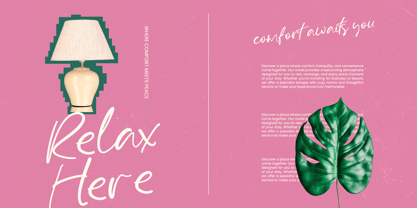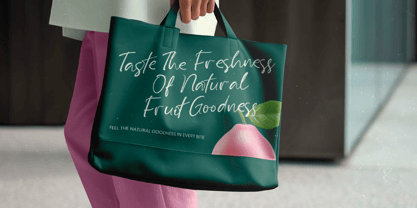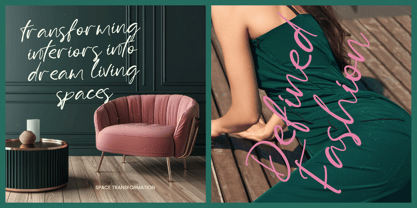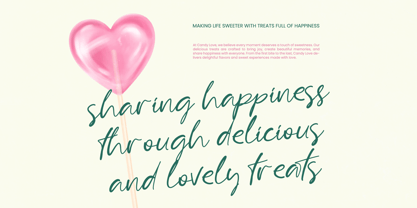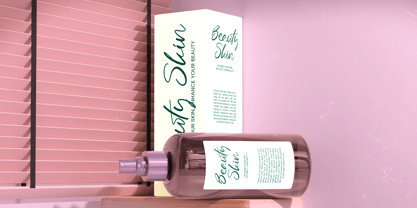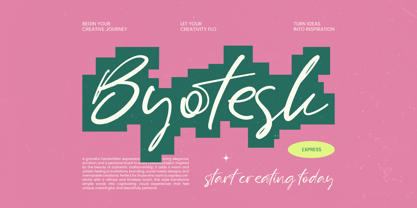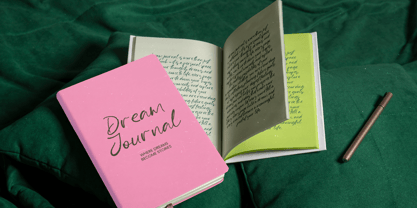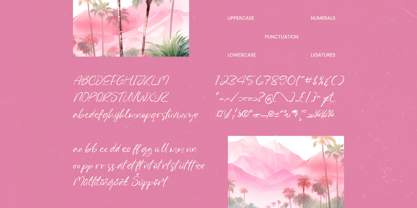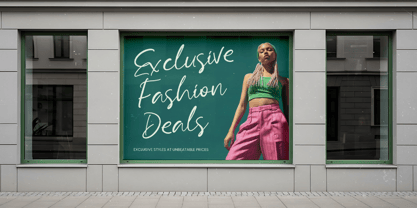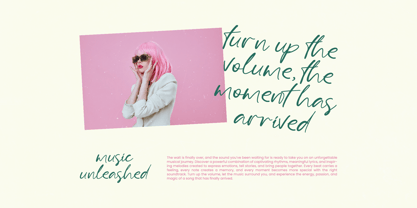
Byotesk
The Byotesk Font Family was designed by Heru Utama Putra and published by Stylishtype Studio. Byotesk contains 2 styles and family package options. More about this family
Elevate your design narrative with a touch of organic elegance through Byotesk - Pen Handwritten Font. This modern script typeface captures the natural flow of a smooth pen, offering elegant connections that bring an authentic touch to every composition. Its fluid strokes create a warm and natural appearance, ensuring your creative projects stand out with a clean and professional look that feels both personal and high-end.